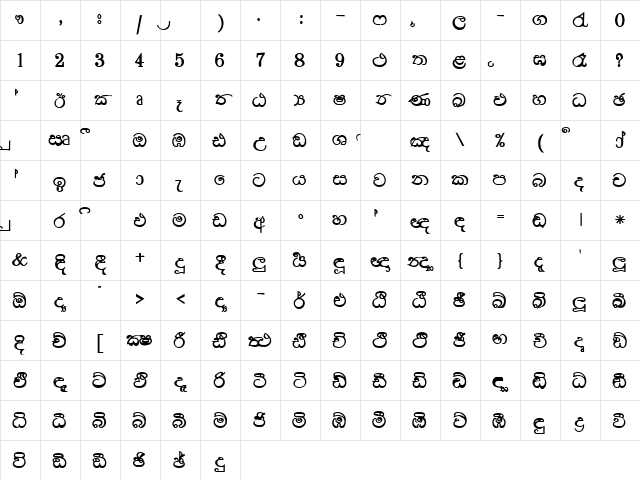
Complete Somi Nisansala Bold Bold glyph index. Displaying only characters natively supported by Somi Nisansala Bold Bold font.
Somi Nisansala Bold is a composed and adaptable typeface that performs quietly and consistently across a wide range of design contexts. Its bold stroke weight gives it real presence on the page.